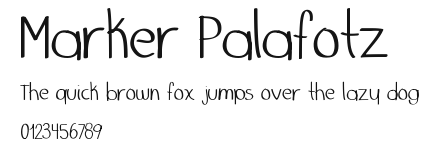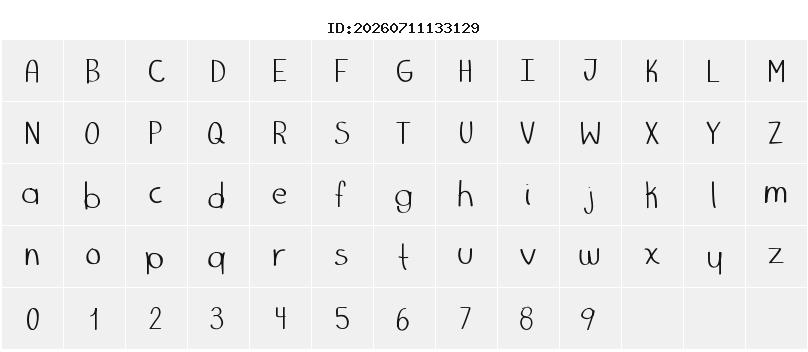
• Font Name: Marker Palafotz
• Full Font Name: Marker Palafotz
Marker Palafotz.ttf is a modern, elegant sans-serif font designed for ultimate readability and visual harmony. Perfect for branding, headlines, web design, and print materials.